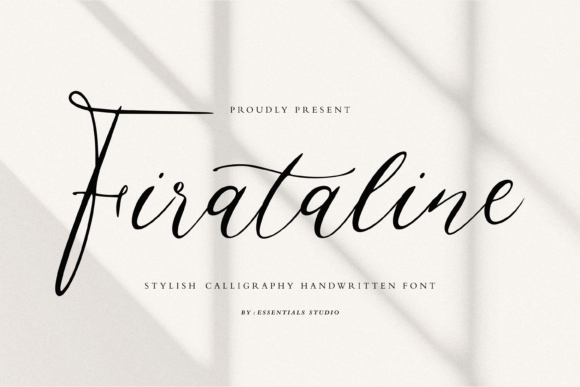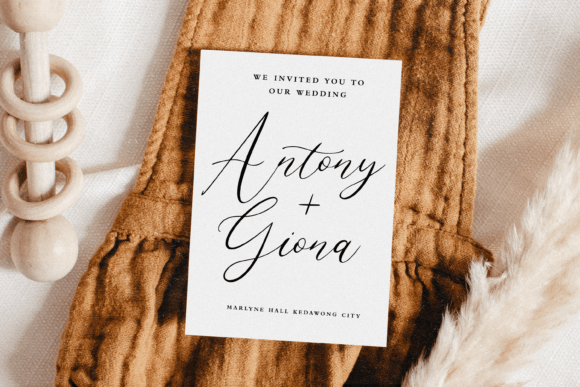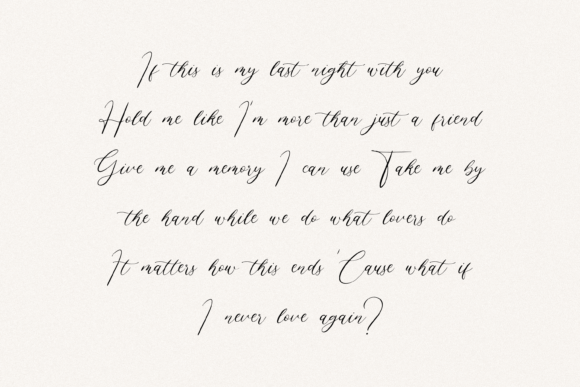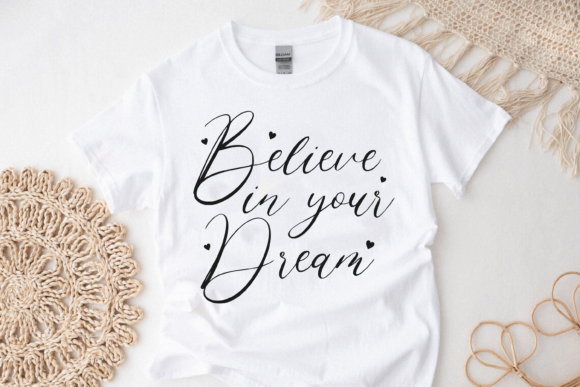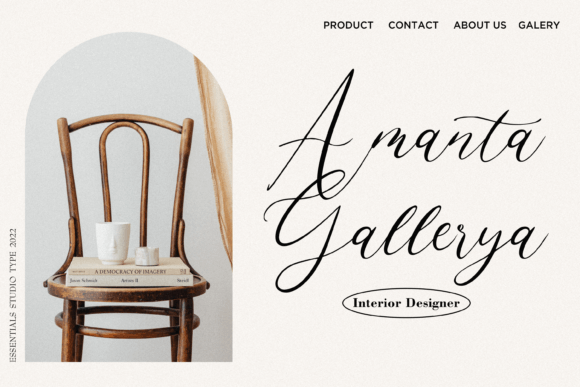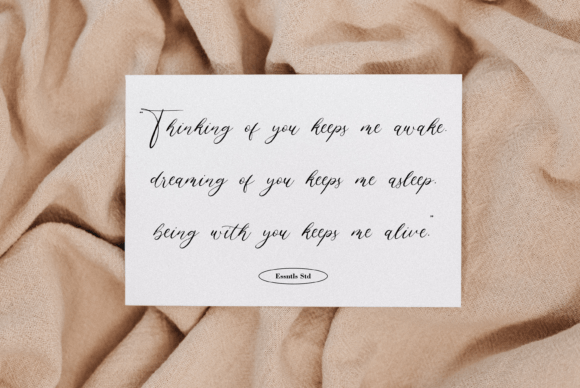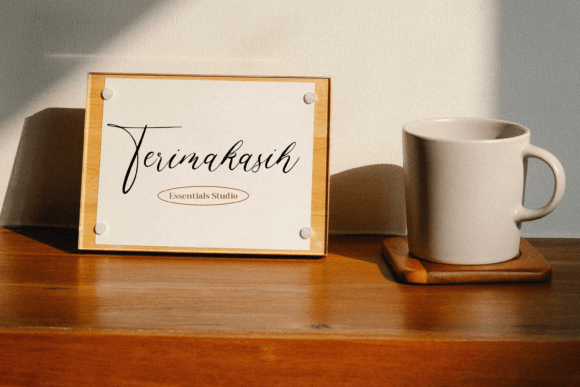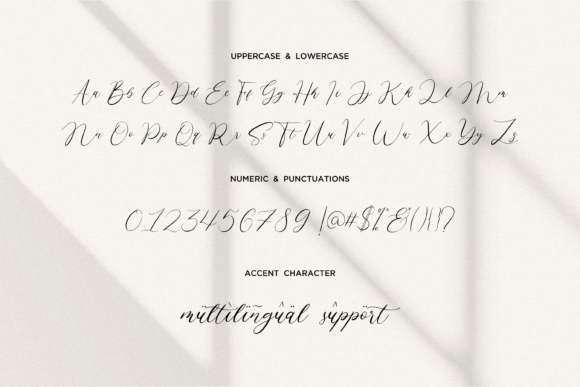
Firataline Font
About Firataline Font
“Firataline” is an elegant and stylish calligraphy handwritten font that adds a touch of sophistication to your design projects. This font is well-suited for a variety of applications, making it an ideal choice for product packaging, branding, magazines, social media, weddings, and any creative endeavor where you want to convey a sense of beauty and style.
The appeal of “Firataline” lies in its versatility and ability to seamlessly integrate with different design elements. Whether you’re working on high-end product packaging, establishing a distinctive brand identity, designing captivating magazine layouts, or creating engaging social media content, this font enhances your work with its stylish calligraphy.
With “Firataline,” you can express your ideas with elegance and grace, making them stand out against any background. Its beautifully crafted characters and flowing script style add a touch of authenticity and creativity to your projects, ensuring they capture attention and resonate with your audience.
As you incorporate “Firataline” into your creative process, you’ll discover its remarkable ability to elevate your work, making it visually appealing and memorable. This font becomes a valuable asset in your design toolkit, enabling you to craft designs that convey a sense of luxury and sophistication, leaving a lasting impression on viewers.
In summary, “Firataline” is a stylish calligraphy handwritten font that excels in adding sophistication to a wide range of design projects. Its versatility makes it a valuable choice for various applications, allowing designers to convey their ideas with style and elegance. Let “Firataline” be your creative companion, and experience how it enhances your designs, ensuring they shine with grace and luxury, and effectively communicate your message to your audience.